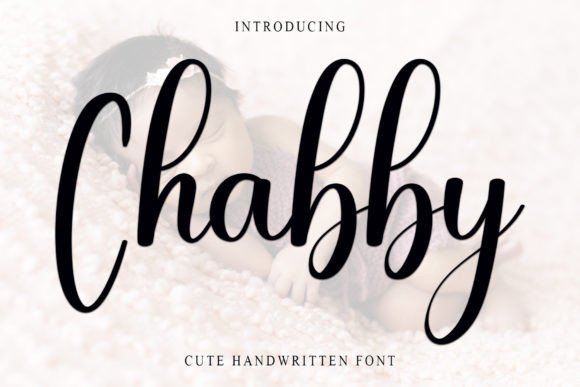
Discover the Timeless Elegance of Chabby Font
As a designer, there’s nothing quite like the rush of inspiration that hits when you stumble upon a unique font. It’s that moment when a project suddenly transforms from bland to breathtaking, and you can’t wait to get creative. For me, that moment came when I discovered the Chabby Font – a beautiful, handwritten font that adds an elegant touch to any design.
Perfect for crafting stunning visuals, Chabby Font is designed to make a lasting impression. With its distinct and timeless style, it’s an ideal choice for designers who want to elevate their projects and leave a lasting mark. Whether you’re working on a branding project, creating a social media campaign, or designing a wedding invitation, Chabby Font is sure to be a valuable addition to your toolkit.
Key Features of Chabby Font
- Unique Characteristics: Chabby Font features a unique, hand-drawn design with subtle imperfections, giving it a warm and inviting feel.
- Kerning and Ligatures: Chabby Font includes advanced kerning and ligature pairs, ensuring that text sets up smoothly and professionally.
Designer Review: Chabby Font
Chabby Font is a font I’ve been experimenting with, and I must say, it has some great qualities that make it appealing. ✨ First of all, the font’s playful and whimsical feel is perfect for creating a lighthearted and approachable atmosphere. The rounded edges and subtle curves add a touch of friendliness that can be very effective in certain contexts.
- ✨ Chabby Font’s unique aesthetic is perfect for branding and advertising projects where a more approachable tone is desired.
- ✨ The font is highly legible, even at smaller sizes, making it suitable for a variety of applications, from digital displays to print materials.
However, there are some limitations to consider. ⚠️ While the font’s playfulness can be an asset, it may not be suitable for all types of projects. For instance, a more formal or professional tone may require a different font. Additionally, Chabby Font may not be as versatile as other fonts, making it less suitable for projects that require a wide range of font styles.
Overall, I think Chabby Font is a great addition to any designer’s toolkit, but it’s essential to use it judiciously and consider the project’s specific needs and tone. With its unique aesthetic and high legibility, Chabby Font can be a valuable resource for designers looking to add some personality to their work.
Getting the Most Out of Chabby Font
1. Experiment with different font sizes and styles to create visual interest.
2. Pair Chabby Font with other fonts to create a unique and eye-catching combination.
3. Use Chabby Font for headings and titles to add a touch of elegance.
1. Wedding invitations and stationery
2. Fashion and beauty branding
3. Luxury product packaging and labeling
Alternatives to Chabby Font
Great Vibes Font is a beautiful, elegant script font suitable for creating a warm and inviting atmosphere. It is ideal for use in wedding invitations, greeting cards, and other materials where a touch of romance is required. Great Vibes Font has a more refined and sophisticated look compared to Chabby Font, making it a better choice for formal events.
Carolyna Pro Font is a modern script font that is perfect for creating a luxurious and high-end feel. It is ideal for use in branding, advertising, and other materials where a sense of sophistication is required. Carolyna Pro Font has a more dramatic and elegant look compared to Chabby Font, making it a better choice for high-end products and services.